One of the most crucial decisions when designing or formatting a book involves selecting the average book font size. Font size affects readability, page layout, page count, and the book’s overall look.
Whether you’re crafting a picture book for children or a nonfiction book, understanding the nuances of font size will help achieve the right balance between functionality and style. We explore font size selection for various book types, from trade paperbacks to large print, including digital formats like eBooks.
Average Book Font Size For Different Types Of Books
| Book Type | Average Font Size (Points) | Font Recommendations |
| Children’s Picture Books | 18 to 24 | Century Schoolbook, Plantin Infants |
| Children’s Chapter Books | 14 to 18 | Garamond, Baskerville |
| Nonfiction Books | 10 to 12 | Baskerville, Minion Pro |
| Large Print Books | 14 to 18 | Arial, Verdana |
| Trade Paperbacks | 10 to 11 | Garamond, Palatino |
| Academic Texts | 10 to 12 | Times New Roman, Georgia |
| eBooks | 12+ (Adjustable) | Georgia, Verdana |
How Font Size Affects Book Layout And Design
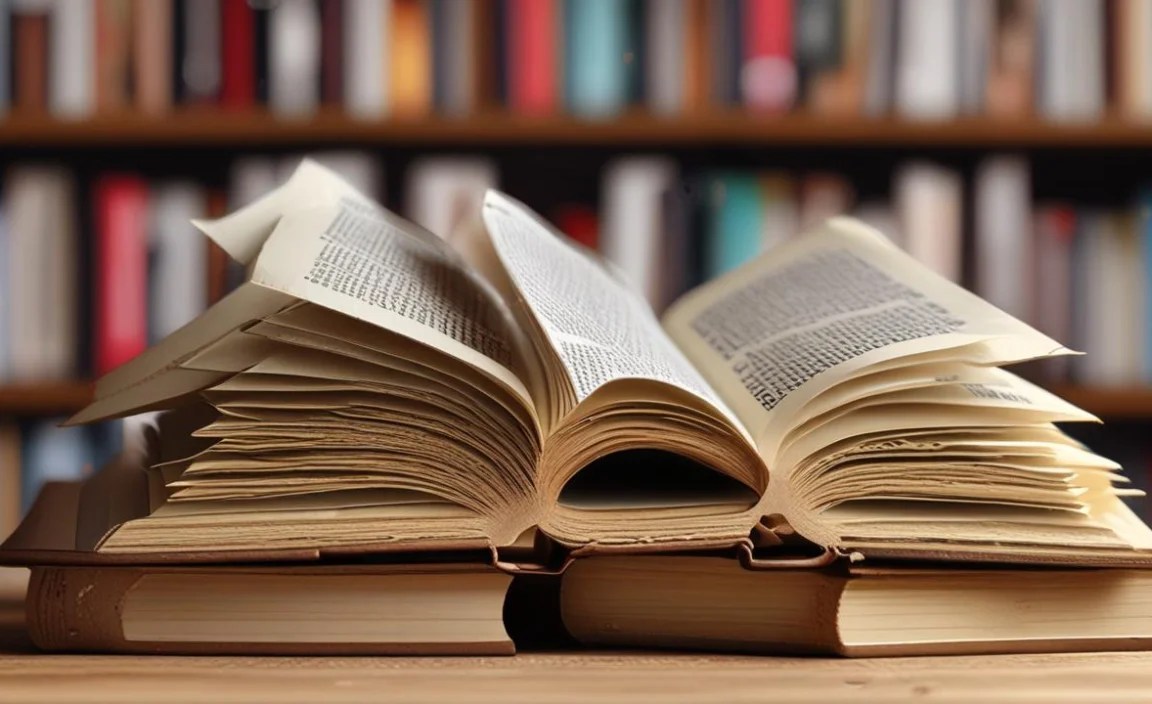
Choosing the right font size directly impacts the book layout and printing costs. For example, a smaller font size will result in fewer pages, reducing distribution and printing costs. However, choosing a font that is too small could make reading uncomfortable, especially for older readers.
A larger font increases the page count but is often necessary for children’s books or those for the visually impaired. Book formatting software like Microsoft Word allows precise font size and layout control, making it easy to adjust and preview before printing.
When designing your book, remember to account for the following:
- Trim size: Standard book sizes like 6″ x 9″ or 5.5″ x 8.5″ may need different font sizes for proper alignment.
- Word count: A longer manuscript may require a smaller font to reduce the page count, while shorter works can use a larger, more spacious design.
- Typography: Choose a font that fits the tone and genre of your book. Serif fonts work well for longer texts, while sans-serif fonts can be used for headings or captions.
The Role Of Fonts In Book Covers And Digital Formats
The book cover is another critical area where font selection plays a huge role. For book covers, titles should be 48 points or larger, while subtitles and author names use smaller sizes. When using design tools like Google Fonts, ensure the chosen typefaces offer bold, italic, and other variations to maintain flexibility in your book design.
The formatting is slightly different in eBooks. Although print books require fixed font sizes, eBooks adapt to ebook readers, where the reader can adjust the text size themselves. When choosing a font like Georgia or Verdana at least 12 points are recommended for quality in EPUB conversion.
Choosing the right font size is essential in book design, affecting readability, layout, and overall appeal. By understanding average font sizes for various types of books, you can create engaging and accessible reading experiences. Prioritizing readability—whether in print or digital formats—ensures your book resonates with its audience. Thoughtful font selection contributes to your book’s success and enhances its visual and functional quality.
1.What Is The Average Book Font Size For Novels?
The average font size for novels is typically between 10 and 12 points in a serif font like Times New Roman or Garamond.
2.What Is The Ideal Font Size For Children’s Books?
For children’s books, particularly picture books, the ideal font size is 18 to 24 points for younger readers and 14 to 18 points for older children.
3.How Does Font Size Affect The Page Count Of A Book?
A larger font size increases the page count, while a smaller font reduces it. Finding a balance between readability and book size is essential in maintaining the desired length.
4.Can I Use Different Fonts For Headings And Body Text?
Yes, using different fonts for headings (like sans-serif fonts) and body text (like serif fonts) can enhance the book layout and improve readability.
5.What Is The Best Font For Large Print Books?
Large print books use Arial or Verdana fonts at 14 to 18 points for better readability for visually impaired readers.